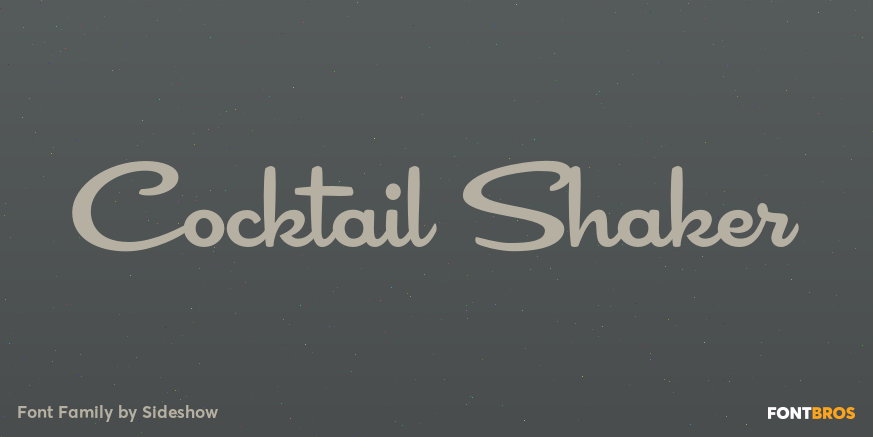
Cocktail Shaker
About Cocktail Shaker
Wrap your chilly fingers around this ultra cool swingin\’ typeface! Cocktail Shaker is a swanky retro connecting script born out of 1950s lounge culture. Often referred to as the \’googie\’ look, Cocktail Shaker blends a casual loungy script with clean readability…